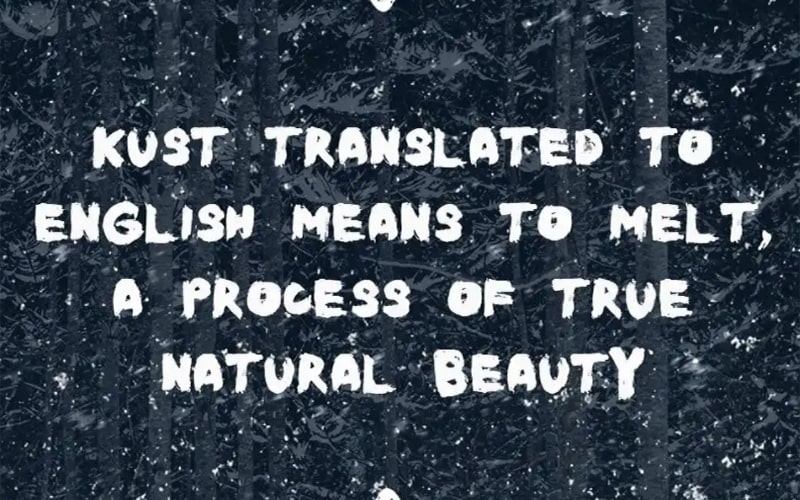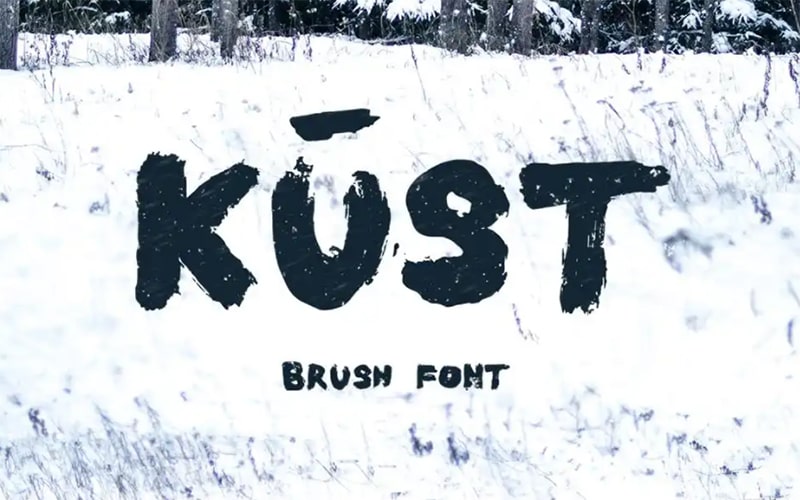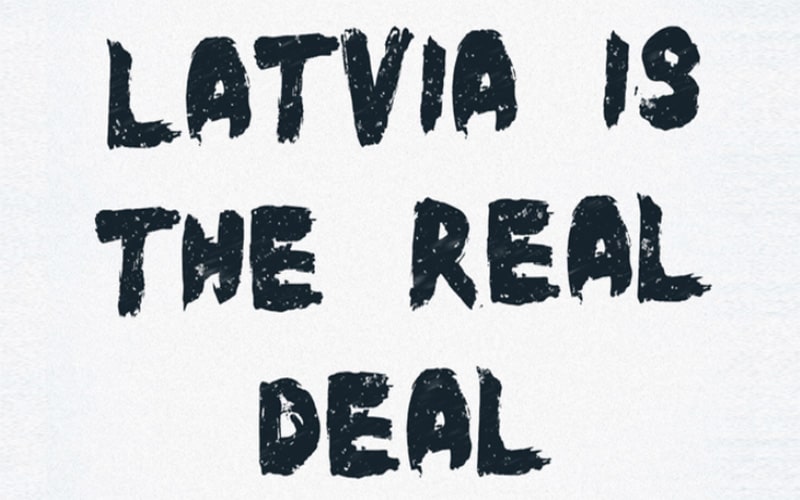
If you are an enthusiast for thick fonts then you’re going to love the Kust Brush Font which we have up for free grabs. The font was designed and developed using script, brush, and handwritten impressions.
The presentation was made by images taken by Krisjanis Mezulis, and the painting that’s in the middle was painted by Ieva Mezule. Ieva Mezule was a good writer, fashion designer, and painter.
Kust brush was updated on Mar 19, 2016. This amazing font contains 430 defined characters and it has come with 2 Regular styles available with support for Latin pro and Cyrillic.
The letters of this font are with a distorted look. Every letter has a unique structure. Because all letters were drawn on paper with a thick brush using pure black ink along with deep concern.
Kust Brush Font